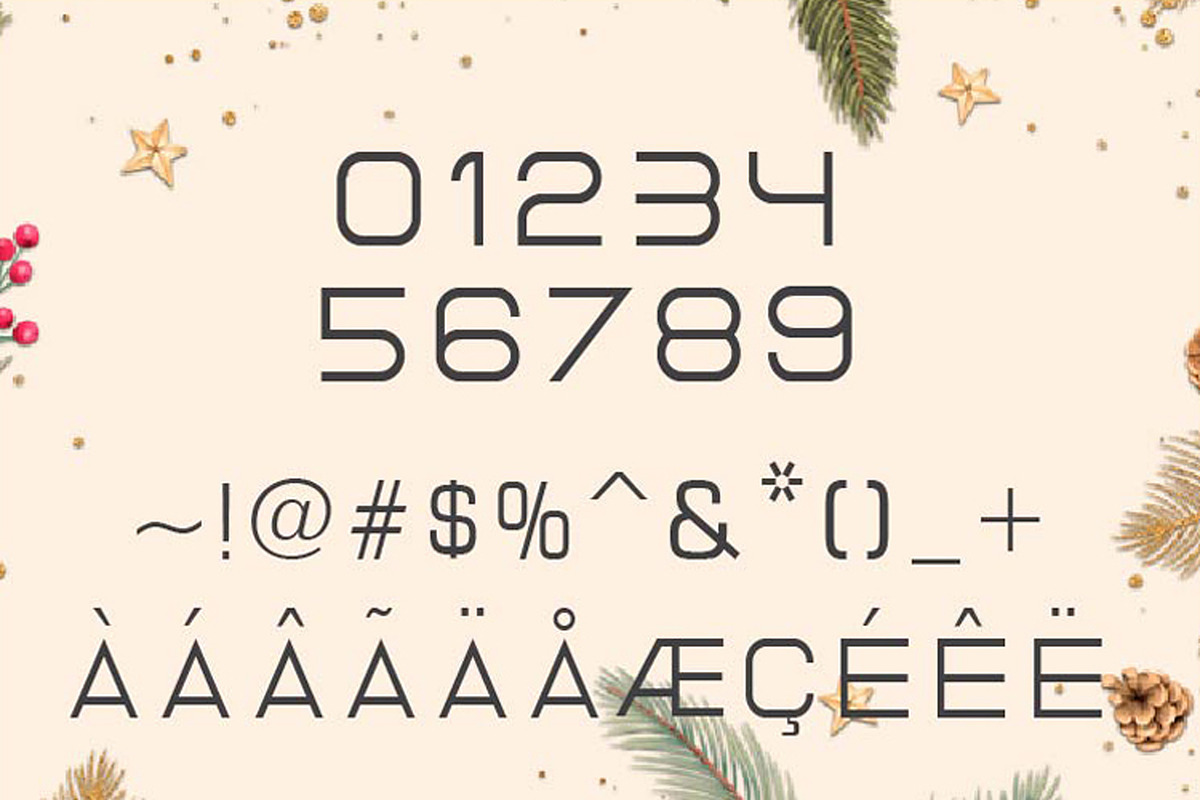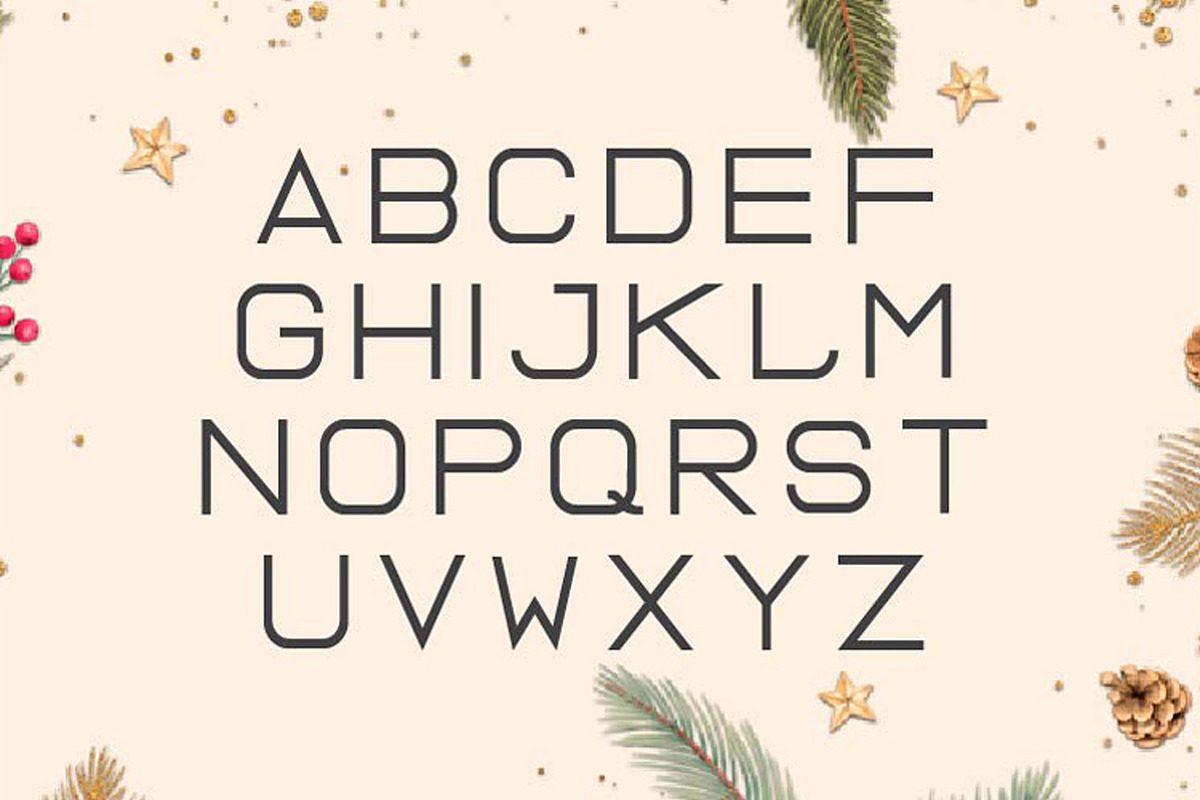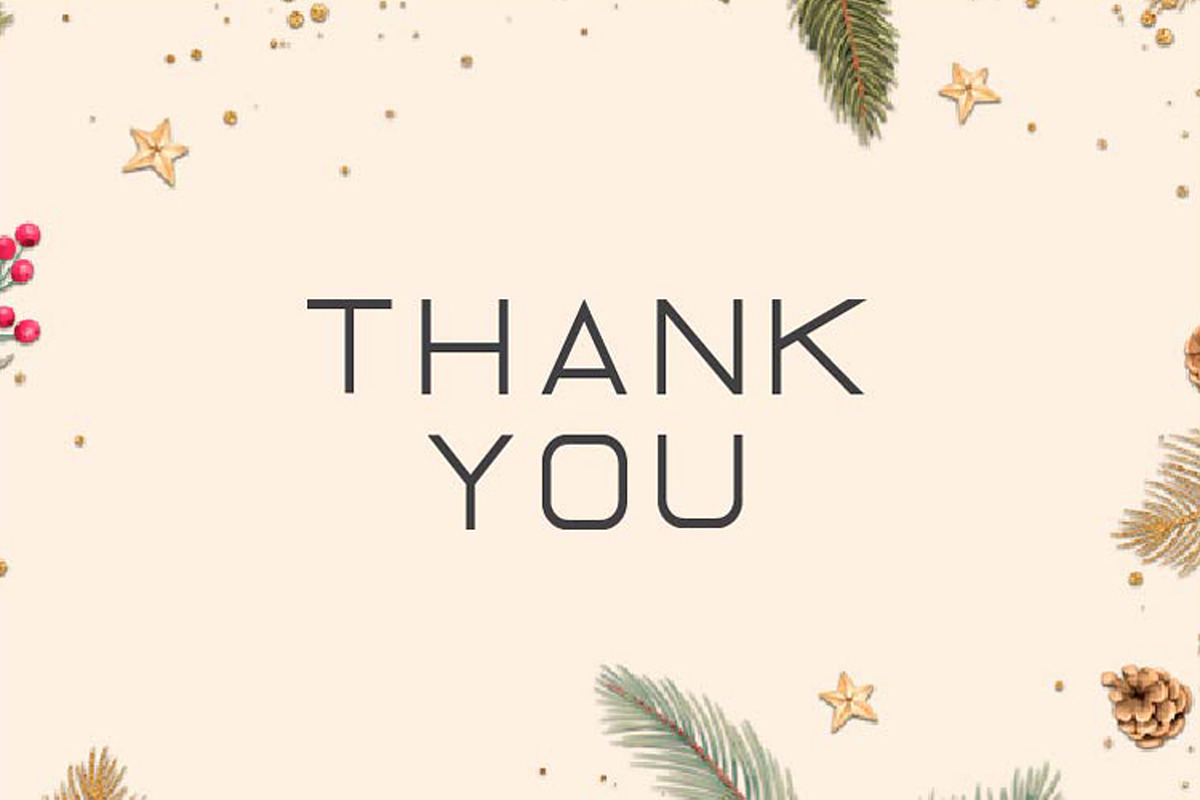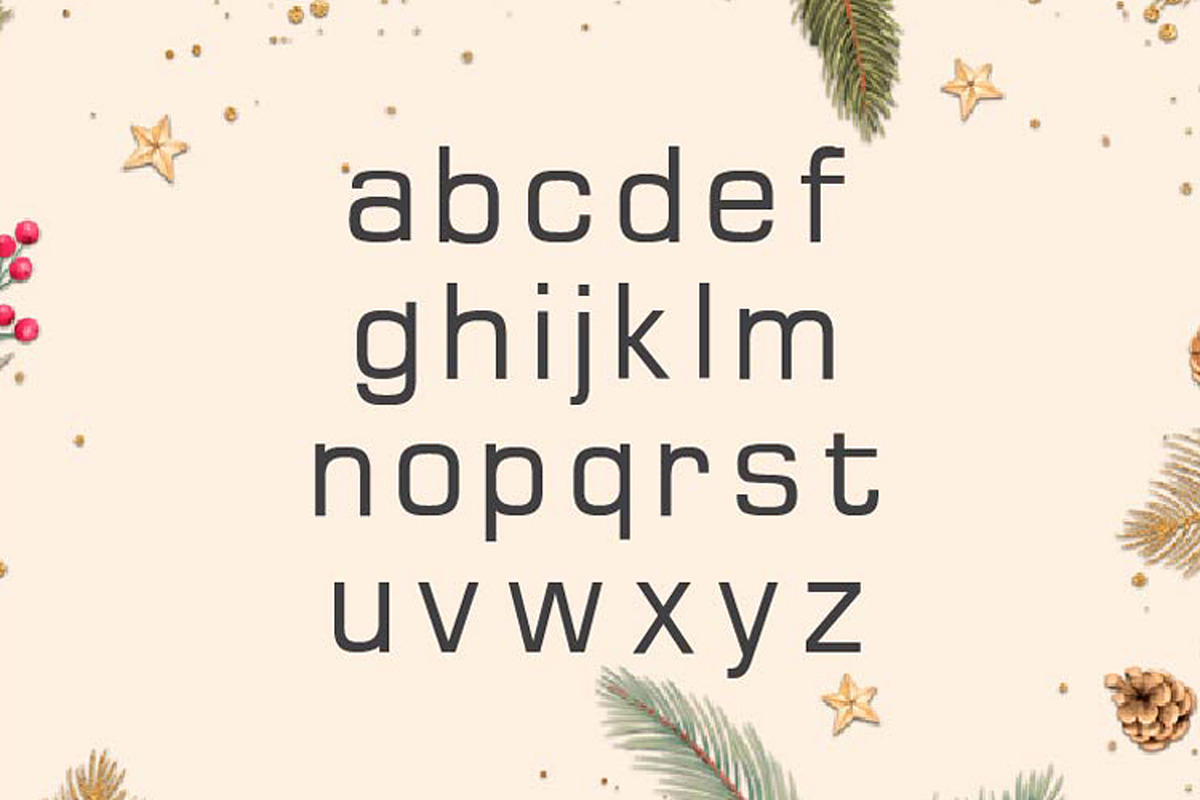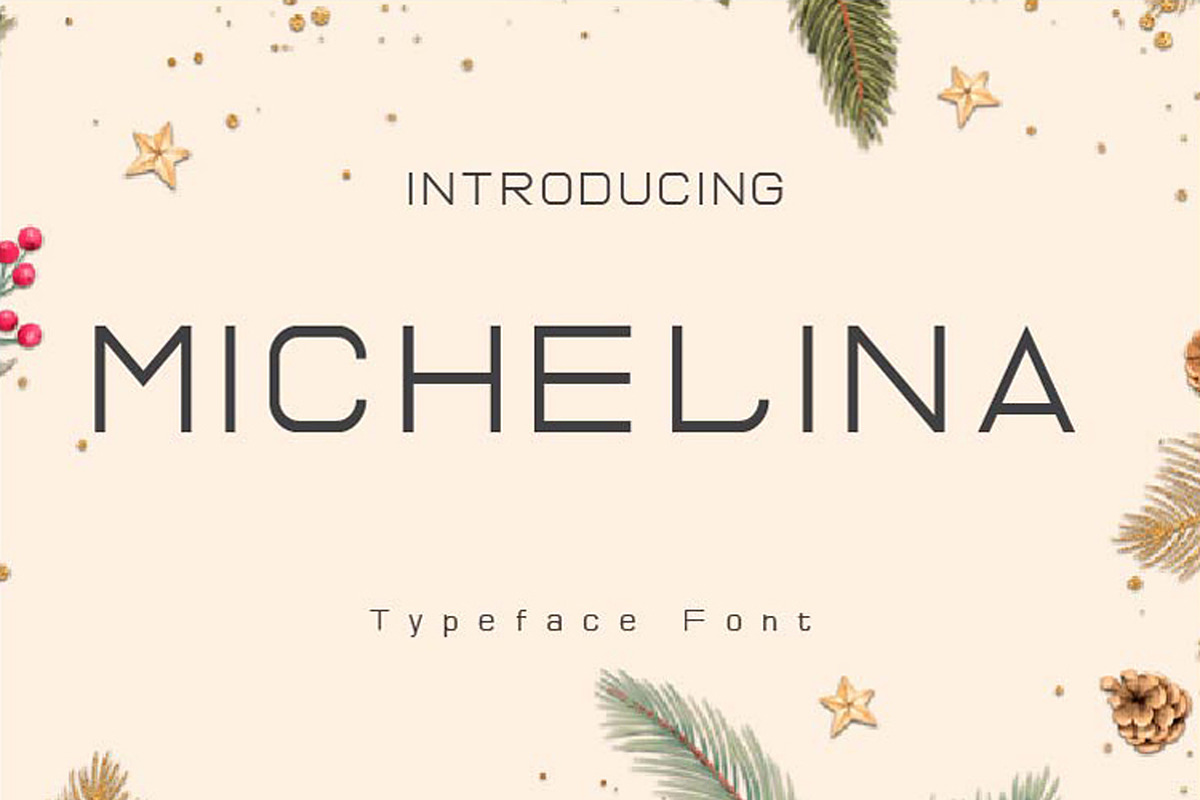
Michelina
Michelina is a cool, simple and modern display font. It can easily be matched to an incredibly large set of projects, so add it to your creative ideas and notice how it makes them stand out!